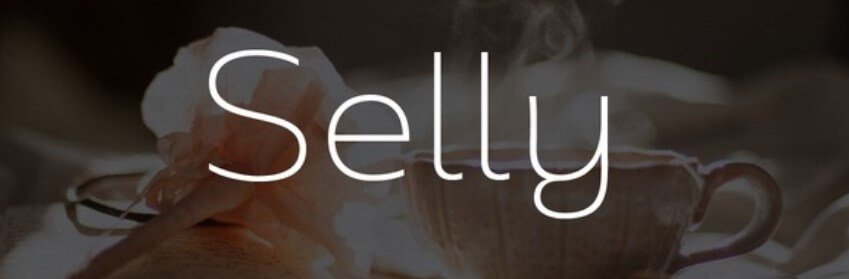
Selly font is an exquisite font best for any display use. This font changed into designed and posted for the first time by Radomir Tinkov.
Selly Font Family